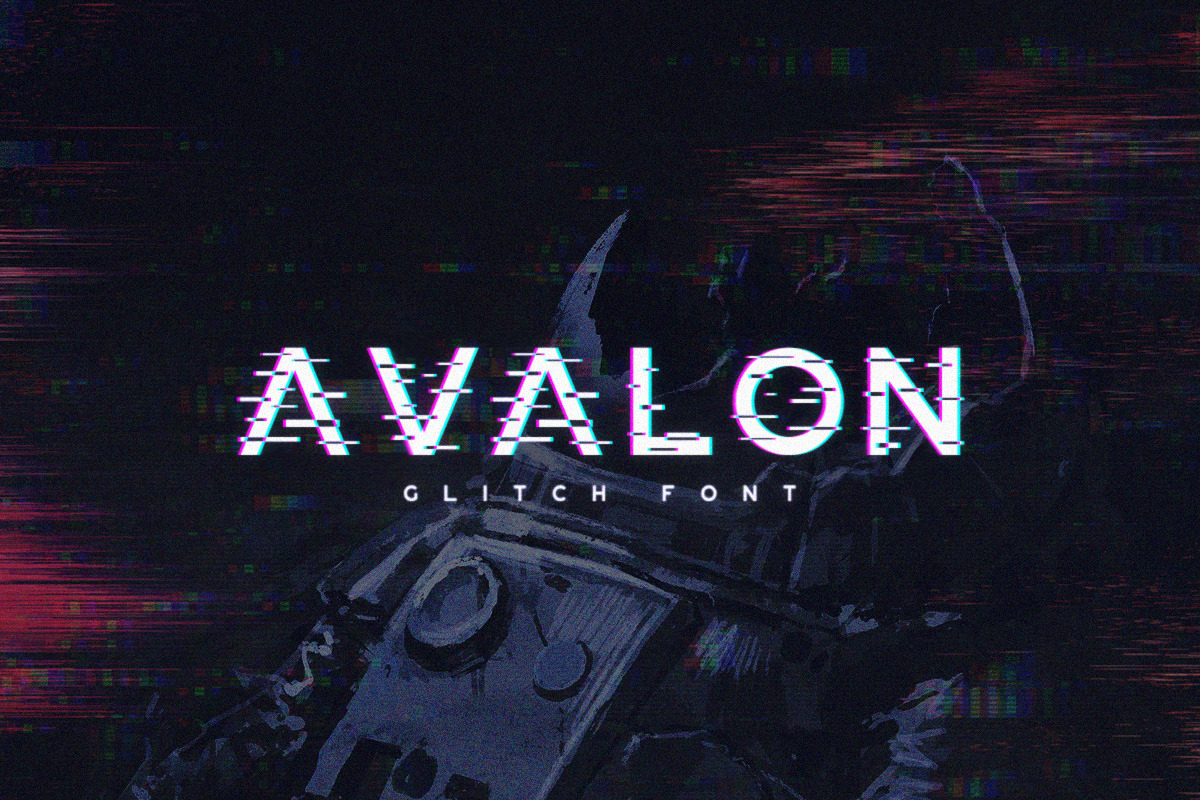
Avalon - Glitch Font
Avalon is a glitch themed font with uppercase multilingual letters, numbers and punctuation. The purchase also includes 5 glitch textures and Photoshop actions to achieve an anaglyph effect identical to the one used on the preview images.